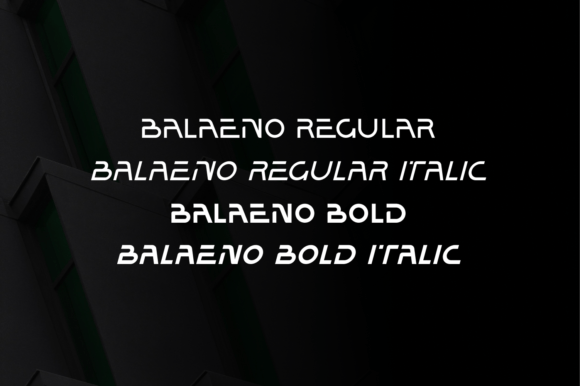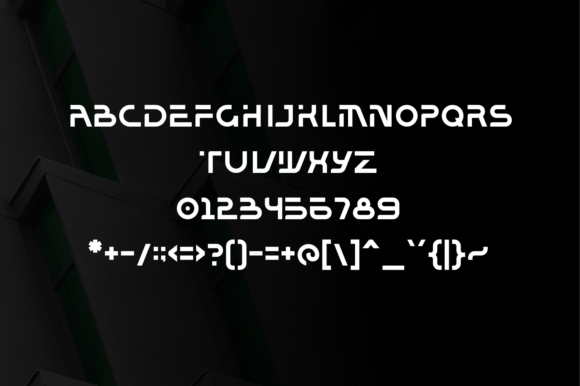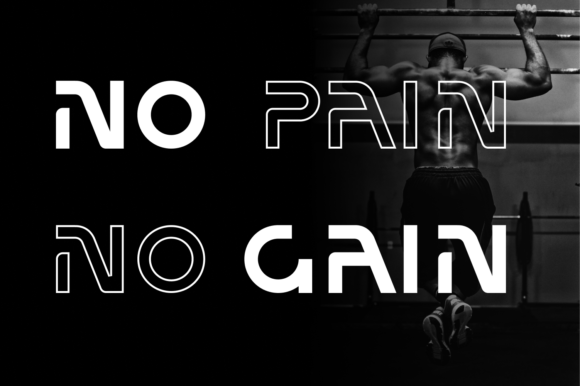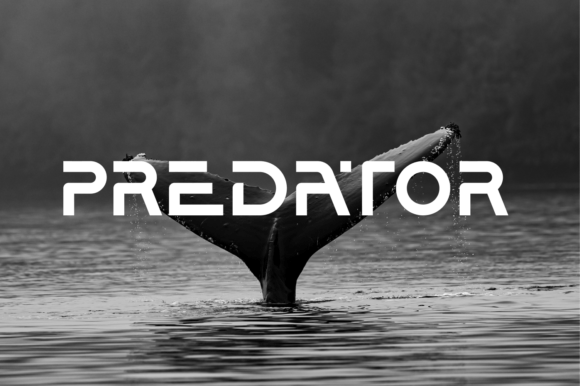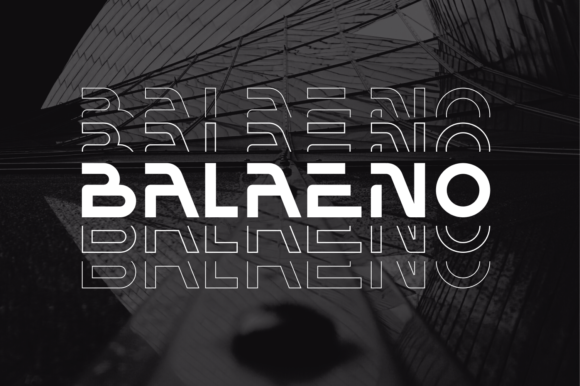
Balaeno Font: A Perfect Blend of Modern Innovation and Timeless Elegance
In the world of typography, fonts play a crucial role in conveying the tone and personality of a brand or design project. With the ever-evolving landscape of design trends, it’s essential to have a font that seamlessly combines modern innovation, sporting spirit, and timeless elegance. This is where Balaeno Font comes into play, a captivating font that embodies the perfect blend of style, sophistication, and cutting-edge technology.
The Genesis of Balaeno Font
Balaeno Font is a meticulously crafted typeface that draws inspiration from the intersection of technology, sports, and luxury. Its design is rooted in the principles of modernity, with a focus on clean lines, sharp edges, and a sleek aesthetic. The font’s creator aimed to develop a typeface that not only reflects contemporary trends but also exudes a sense of innovation and forward thinking.
Key Features of Balaeno Font
So, what sets Balaeno Font apart from other typefaces? Here are some of its key features:
- Sleek Design: Balaeno Font boasts a sleek and modern design that is perfect for a range of design projects, from sports branding to luxury packaging.
- Sharp Lines: The font’s sharp lines and edges give it a cutting-edge feel that’s perfect for technology-driven brands.
- Timeless Elegance: Despite its modern aesthetic, Balaeno Font exudes a sense of timeless elegance that’s suitable for high-end design projects.
- Versatility: The font is highly versatile and can be used for a range of applications, from digital media to print materials.
Design Applications of Balaeno Font
Balaeno Font is an incredibly versatile typeface that can be used for a wide range of design projects. Here are some examples:
- Sports Branding: The font’s sleek design and sporting spirit make it perfect for sports branding, from team logos to sponsorship materials.
- Technology and Gaming: Balaeno Font’s cutting-edge aesthetic makes it an excellent choice for technology and gaming brands looking for a modern and innovative typeface.
- Luxury Packaging: The font’s timeless elegance and sophistication make it suitable for luxury packaging designs, from high-end fashion to premium food and beverage products.
- Digital Media: Balaeno Font is optimized for digital media, making it perfect for website designs, social media graphics, and mobile app interfaces.
Why Choose Balaeno Font?
With so many fonts available in the market, why choose Balaeno Font? Here are some compelling reasons:
- Unique Aesthetic: Balaeno Font offers a unique aesthetic that’s hard to find in other typefaces, making it an excellent choice for designers looking to stand out.
- High-Quality Design: The font is meticulously crafted with attention to detail, ensuring a high-quality design that’s perfect for professional projects.
- Easy to Read: Balaeno Font is designed to be easy to read, making it perfect for body text and other applications where legibility is crucial.
In conclusion, Balaeno Font is an exceptional typeface that seamlessly combines modern innovation, sporting spirit, and timeless elegance. Its sleek design, sharp lines, and versatility make it an excellent choice for a range of design projects, from sports branding to luxury packaging. Whether you’re a designer, craftsperson, or simply someone looking for a unique font, Balaeno Font is definitely worth considering.